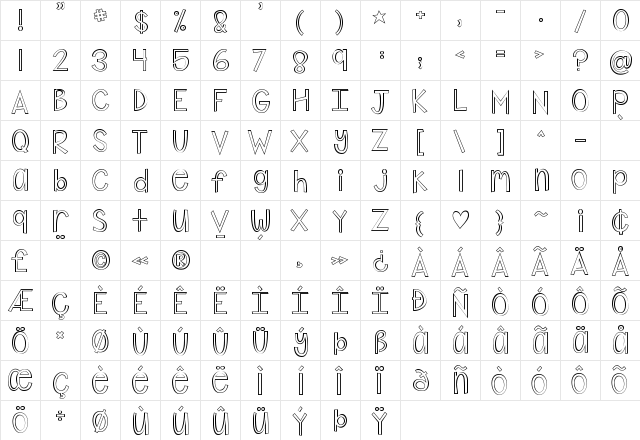
KG Shake it Off Outline Regular
| Foundry | Kimberly Geswein |
| Designer | Kimberly Geswein |
Design Context for KG Shake it Off Outline Typeface
KG Shake it Off Outline brings ornamental detail and strong personality to headlines and identities, where visual impact matters more than quiet functionality.
Font Pairing: Pair with a clean neutral sans-serif for body copy to let KG Shake it Off Outline's character lead without overwhelming the composition.
Pro Tip: Use KG Shake it Off Outline exclusively at display sizes — it was designed to be seen, not read at length. Let a neutral companion handle body copy.